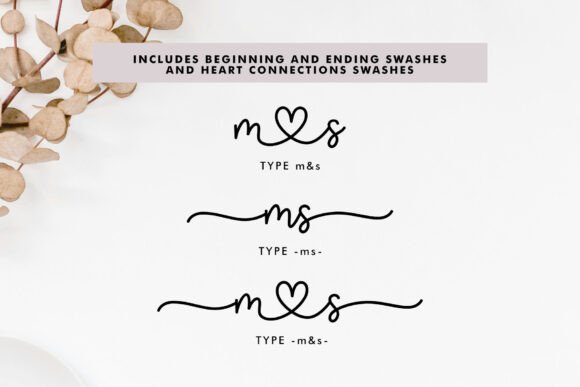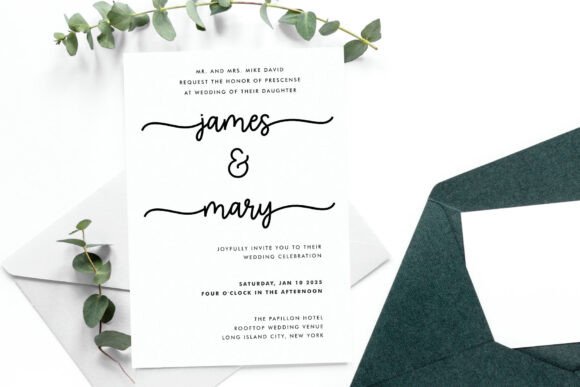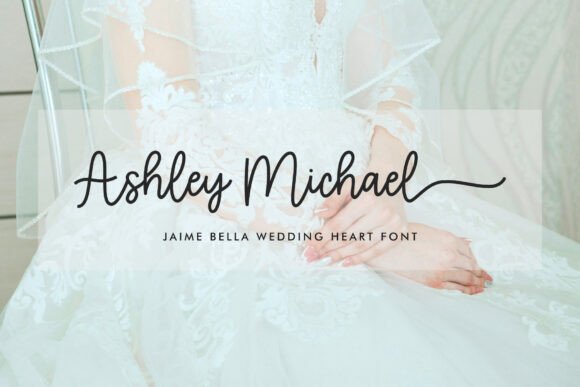
Jaime Bella Font: Elegant Wedding Script with Heart Swashes!
About the Jaime Bella Font
Step up your design game with Jaime Bella Font, a font that exudes confidence and style. Introducing the Jaime Bella Font. Inspired by the French word for “I love,” we anticipate widespread appeal and believe it is ideally suited for wedding projects celebrating romantic. The Jaime Bella Font embodies the spirit of love and is the perfect choice for projects demanding a combination of romance and elegance. Its suitability extends to weddings, branding, and designs requiring a heartfelt touch.
Jaime Bella’s elegant, slightly italicized forms make it ideal for headlines, short-form text on invitations, or branding elements requiring a touch of refined romance. It works well in wedding stationery, logo design, and short marketing materials where a sense of sophistication is key. However, its delicate nature makes it less suitable for body text or UI elements; the low x-height and letter spacing would hinder readability in longer passages.
Consider pairing Jaime Bella with a clean sans-serif like Montserrat for a modern balance, or a classic serif like Garamond for a more traditional feel. For a playful contrast, a slightly rounded geometric sans-serif such as Lato could also work well. This would add visual interest while maintaining a consistent level of elegance.
The font’s overall personality is sophisticated and romantic, lending itself to brands and projects that convey luxury, intimacy, or timeless appeal. Avoid using it where a bolder, more assertive presence is needed.
Jaime Bella Font Usage Examples
Jaime Bella Font Example